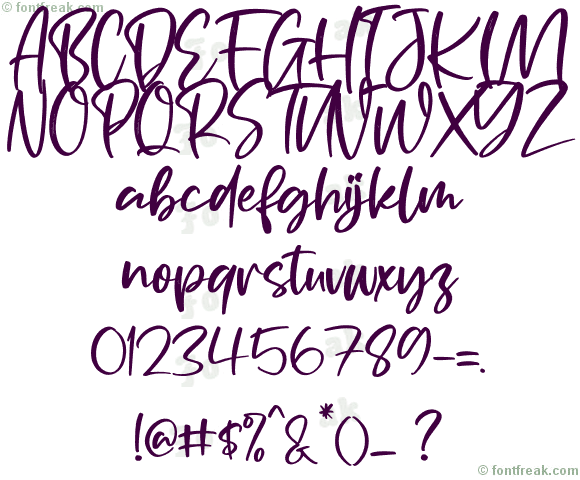
Portofolio Brilliant
About Portofolio Brilliant
Portofolio Brilliant is an elegant script font created by Perspectype Studio in 2021. This font falls into the category of handwritten typefaces, characterized by its fluid strokes and graceful curves. The design features a medium stroke weight with varying contrast, giving it a lively and organic feel. The spacing is well-balanced, allowing for easy readability while maintaining a personal touch that mimics natural handwriting. Decorative elements are subtly integrated, contributing to its charm without overwhelming the overall aesthetic.
This versatile font is perfect for a variety of use cases, making it an excellent choice for graphic designers and content creators alike. It shines in wedding invitations, where its romantic flair can set the tone for special occasions. Additionally, Portofolio Brilliant can enhance the appeal of restaurant menus, adding a touch of sophistication that elevates the dining experience. It is also well-suited for branding projects, enabling small business owners to convey a unique identity. Furthermore, it can be effectively used in social media graphics, helping content creators capture attention with its stylish appearance.
The target audience for Portofolio Brilliant includes graphic designers looking for a distinctive font to add to their toolkit, small business owners who want to create a memorable brand image, and content creators seeking to enhance their visual storytelling.
What sets the Portofolio Brilliant font apart is its ability to combine elegance with approachability, making it a perfect choice for both formal and casual applications. The seamless blend of artistic flair and usability ensures that it stands out in a crowded font marketplace. For those interested, the Portofolio Brilliant font free download offers an opportunity to incorporate this stunning typeface into various projects without any cost, making it accessible to all.